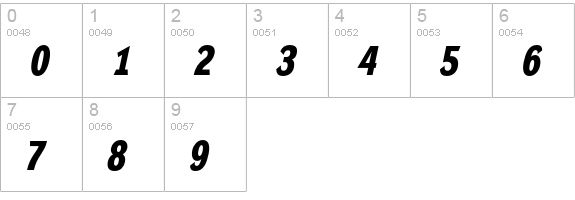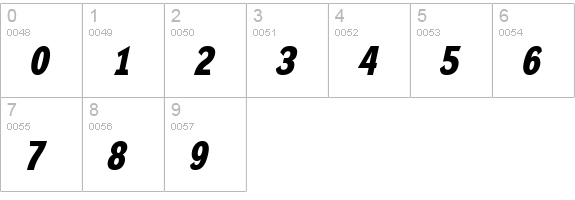
Dynamo Italic B M is a distinctive, italic variant in the Dynamo typeface family \xE2\x80\x94 well suited to design and typography projects.
Dynamo Italic B M font is a stylish and modern typeface that exudes sophistication and elegance. Its sleek italic design adds a touch of flair to any project, making it perfect for branding, advertising, and editorial use. The font features clean lines and a bold presence, making it a versatile choice for various design applications. Best of all, Dynamo Italic B M font is available for free download at FontsMarket.com. This means you can easily access this high-quality font without any cost, making it a valuable addition to your font library. Don't miss out on the opportunity to enhance your designs with the sleek and contemporary Dynamo Italic B M font – download it for free today!